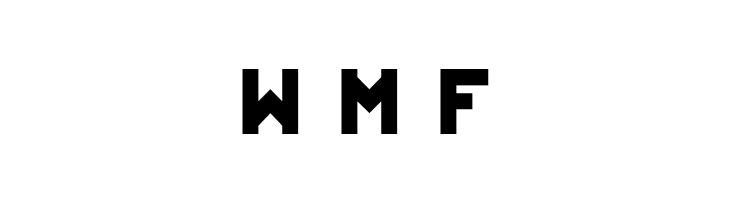
A playful font combining geometric and cursive elements with bold strokes.
A bold, sans-serif font with a shaded, three-dimensional effect.
A modern font with angular letterforms and a blend of classic and contemporary styles.
A bold, decorative font with outlined, three-dimensional characters.
A bold geometric font with Art Deco influences, featuring tall, narrow letters and consistent stroke widths.
A modern, textured sans-serif font with diagonal line detailing.
A playful, bold font with rounded edges and a bubbly appearance.
A bold, geometric font with rounded edges and a modern feel.
A playful, decorative font with circular embellishments and bold, expanded characters.
A decorative font with cursive script letters inside bold heart shapes.
A bold, modern font with clean lines and a geometric influence.
A bold, geometric font with thick, rounded strokes and a modern aesthetic.
A bold, modern font with a unique hollow outline and geometric style.
A playful, blotchy font with an artistic, ink-splatter appearance.
A sleek, modern font with elongated, narrow characters and a minimalistic style.